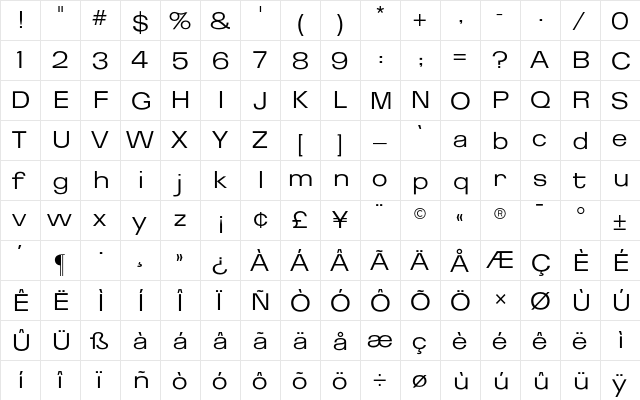
Brazilia Three CG Regular
| Foundry | Agfa Corporation |
Design Context for Brazilia Three CG Typeface
Brazilia Three CG takes a measured approach to typography — its balanced proportions and neutral character make it a reliable workhorse for both digital and print work.